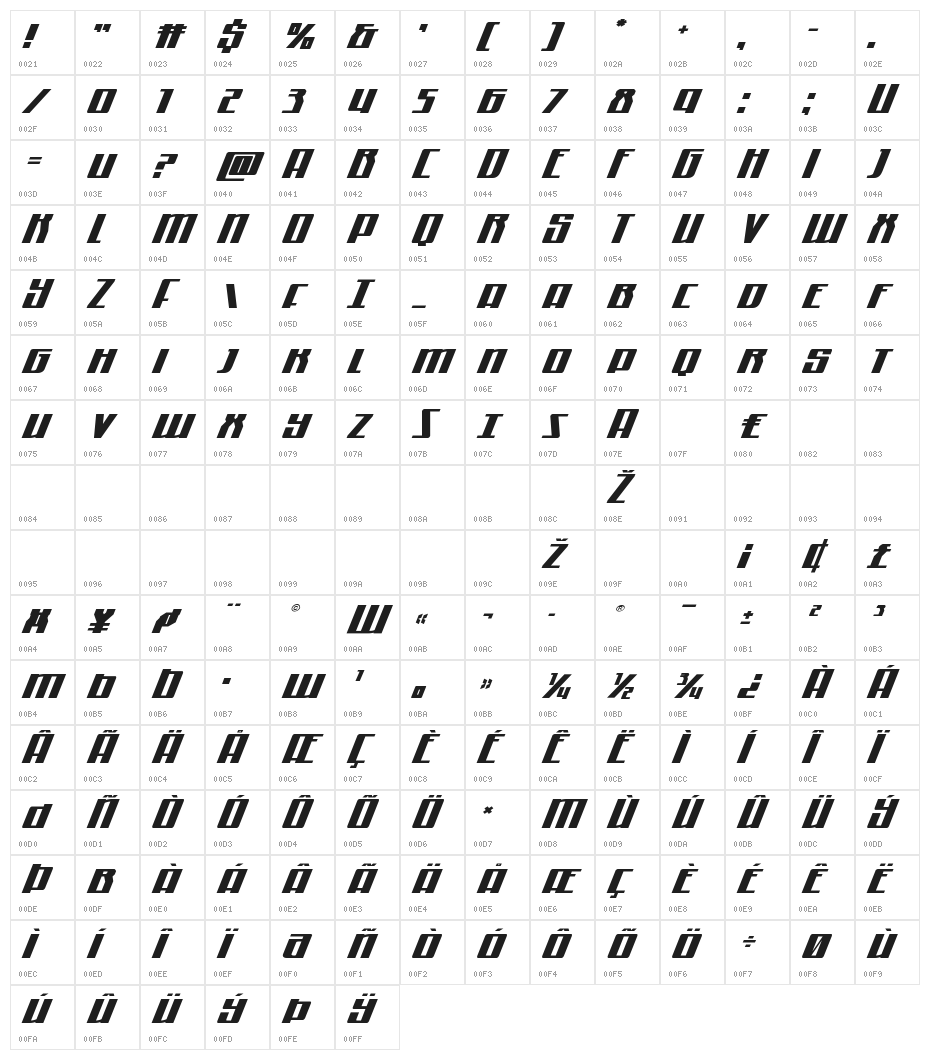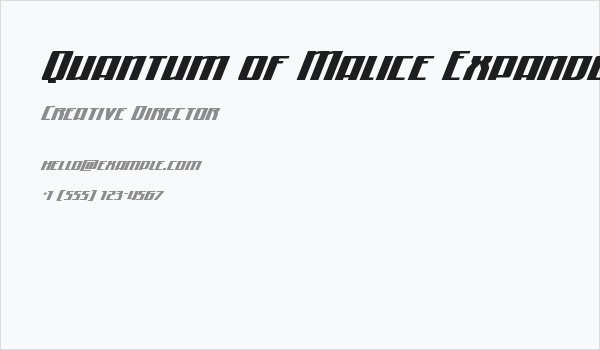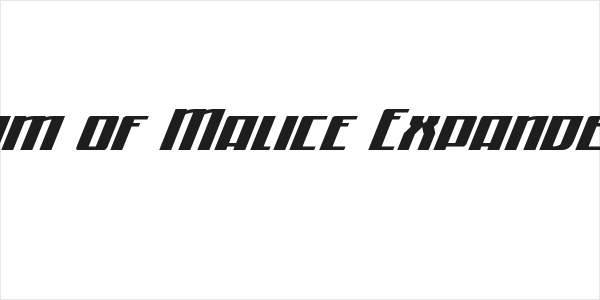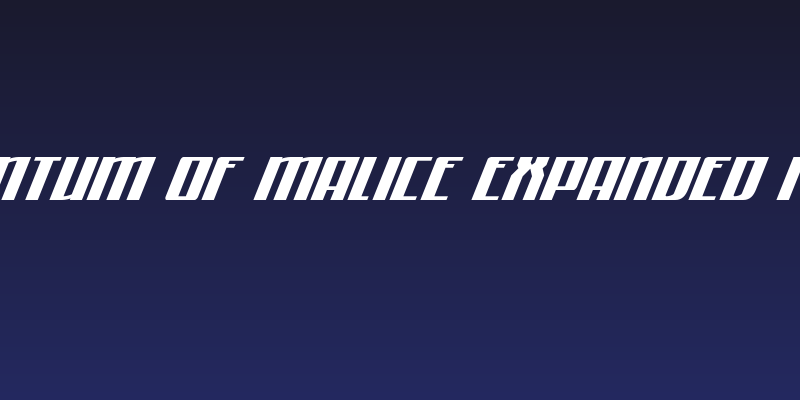
Quantum of Malice Expanded Italic Font
Quantum of Malice Expanded Italic Description
This font features a bold, italicized style with a distinctly modern and aggressive appearance. The characters are expanded, giving them a wide stance that commands attention. Each letter is sharply angled, contributing to a dynamic and energetic feel. The strokes are thick and consistent, providing a strong visual impact. The design is clean yet edgy, making it suitable for projects that require a bold statement. The spacing between characters is tight, enhancing the compact and cohesive look of the text.
| Proposed Projects | Ideal for sports branding, action movie posters, video game titles, and dynamic advertising campaigns. |